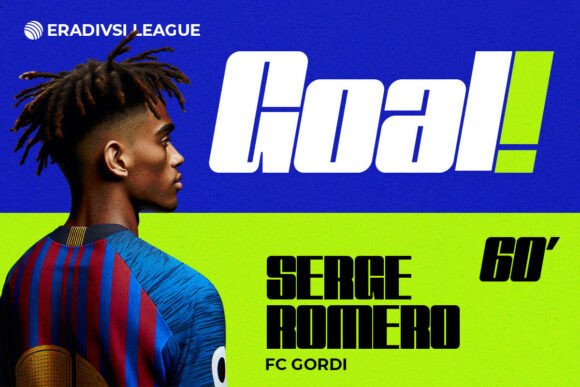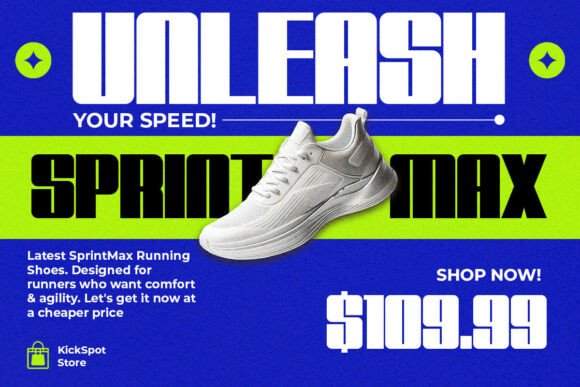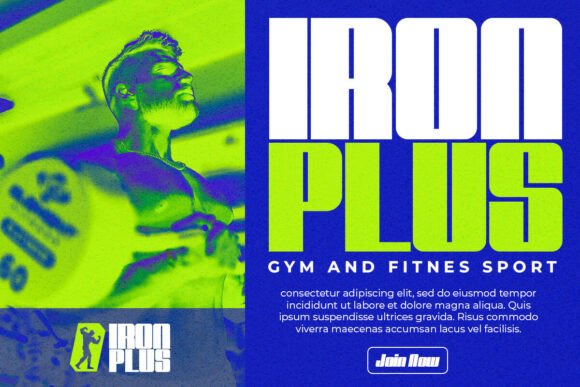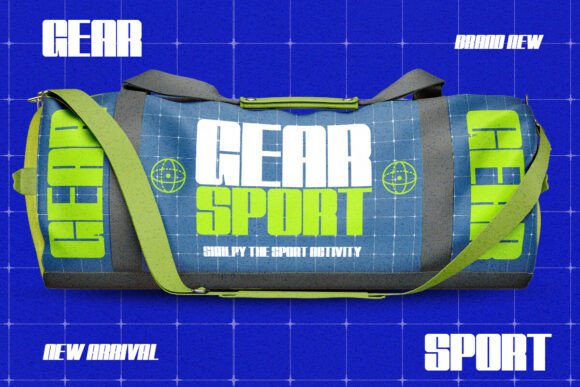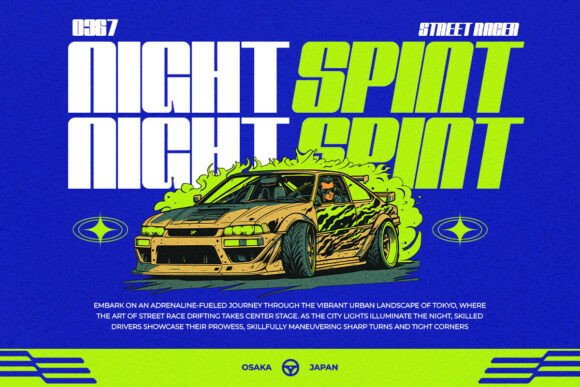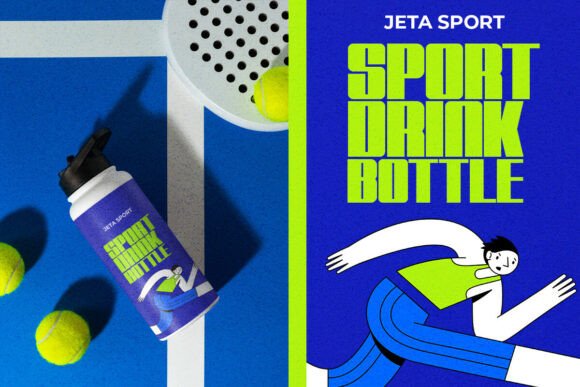
Introduction to Gordi Font
Gordi comes with two versatile styles: Regular and Oblique.
The Regular style provides solid, balanced characters that work perfectly for bold titles, sports branding, and impactful headlines Meanwhile, the Oblique style introduces a sense of speed and motion, making it ideal for designs that need a fast, aggressive, and action-driven appearance.